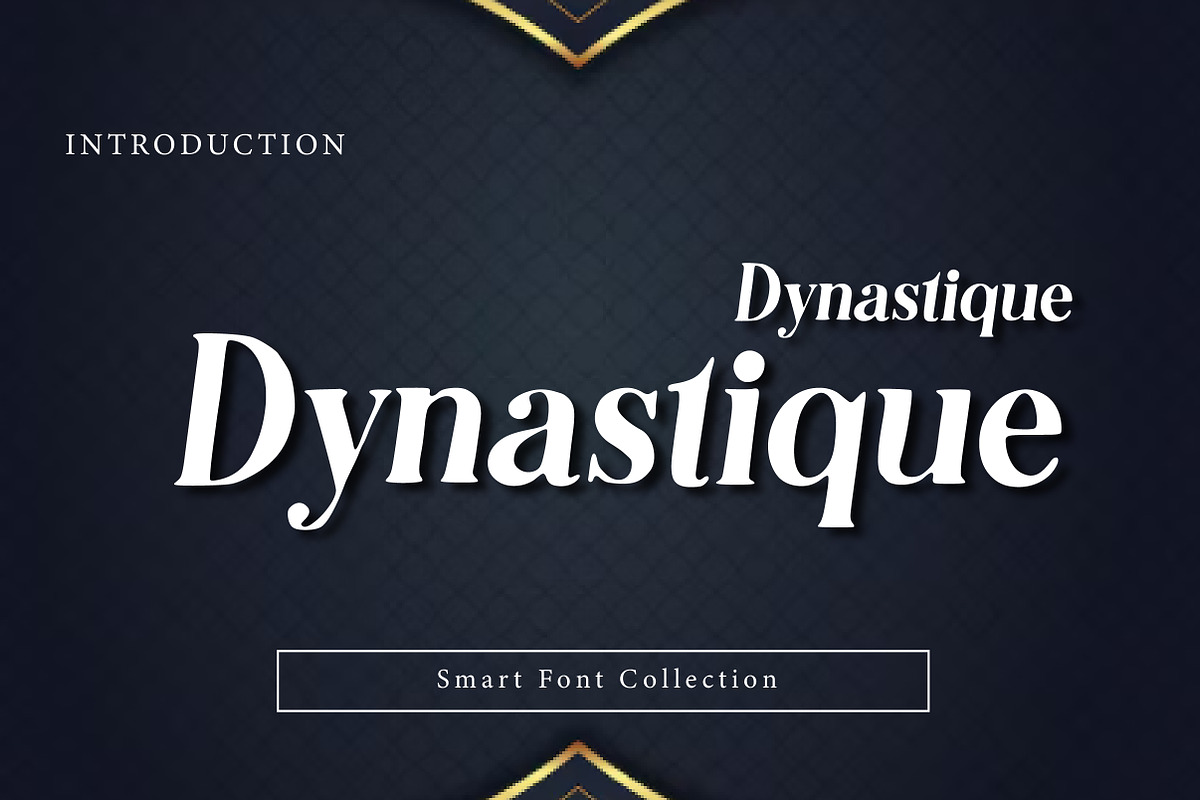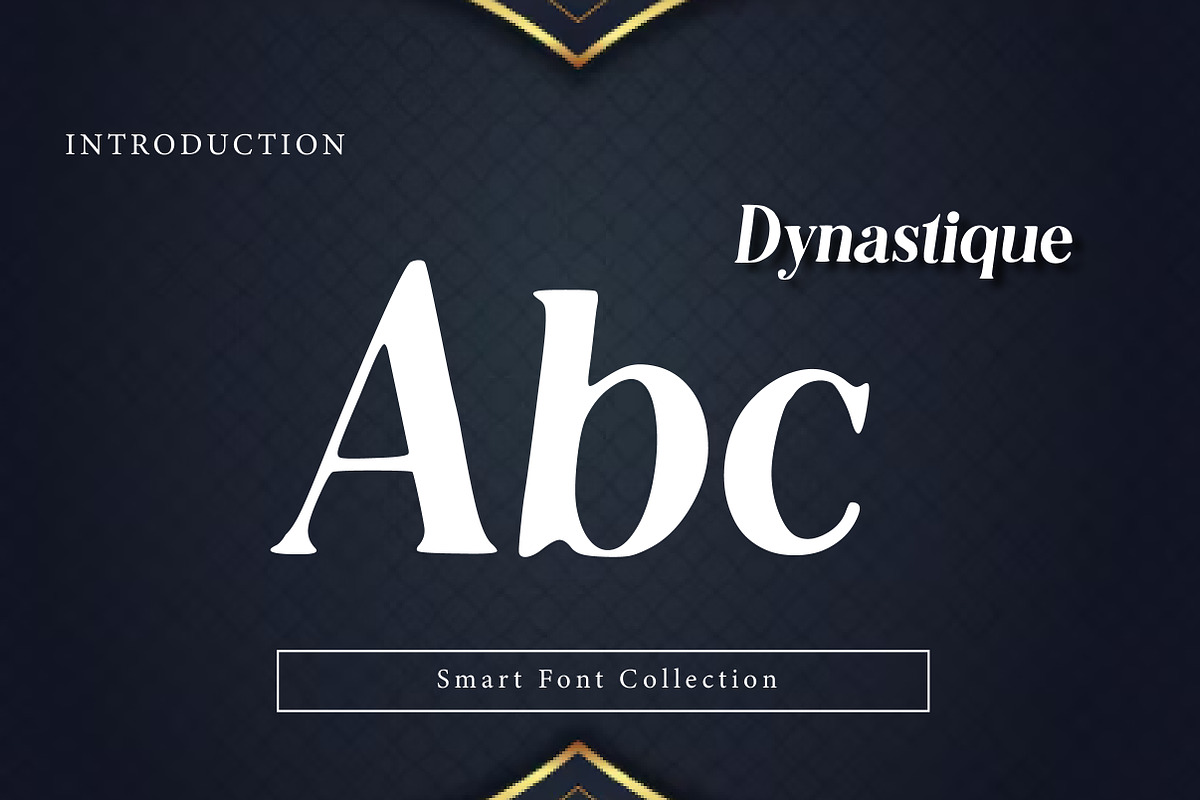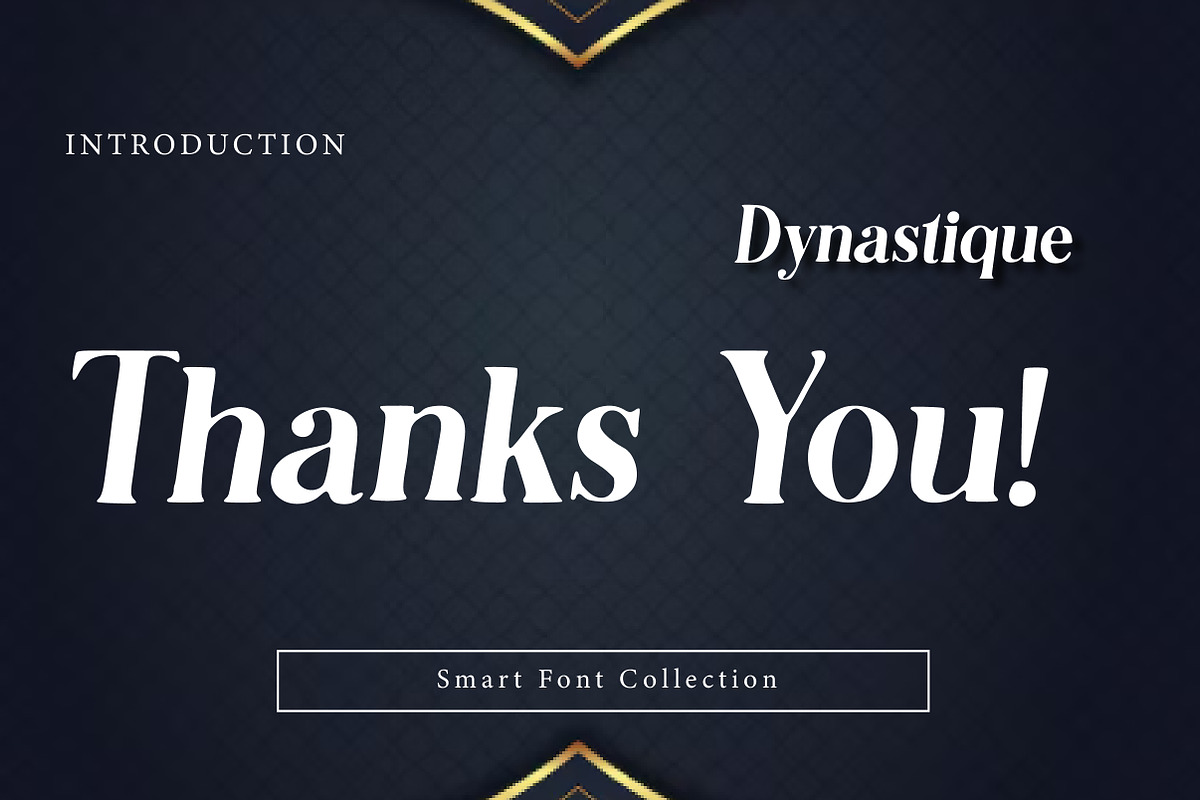
Dynastique
Dynastique is a refined and elegant serif display font designed to bring a timeless, luxurious, and editorial feel to your typography. Featuring graceful curves, high-contrast strokes, and sophisticated serif details, this typeface is perfect for high-end branding and premium design projects.
With its stylish and classic appearance, Dynastique works beautifully for fashion logos, luxury product branding, magazine headlines, wedding invitations, book covers, and premium packaging design. The font carries a royal, vintage-inspired aesthetic while still looking modern and clean—making it ideal for designers who want typography that feels classy, upscale, and memorable.
Whether you’re creating a luxury brand identity or designing elegant editorial titles, Dynastique delivers a professional and premium look. Its sharp yet smooth letterforms give your text a strong presence, especially when used in larger sizes for headlines and logo typography.